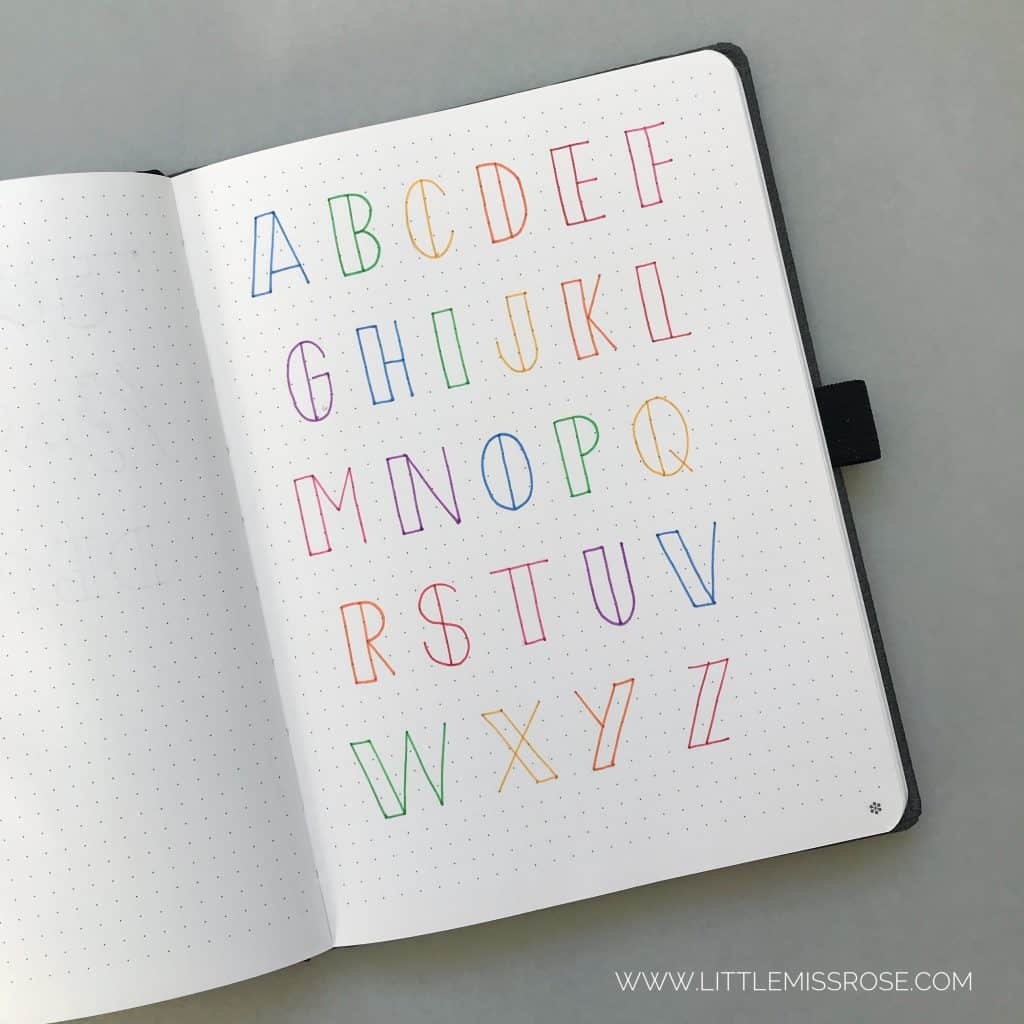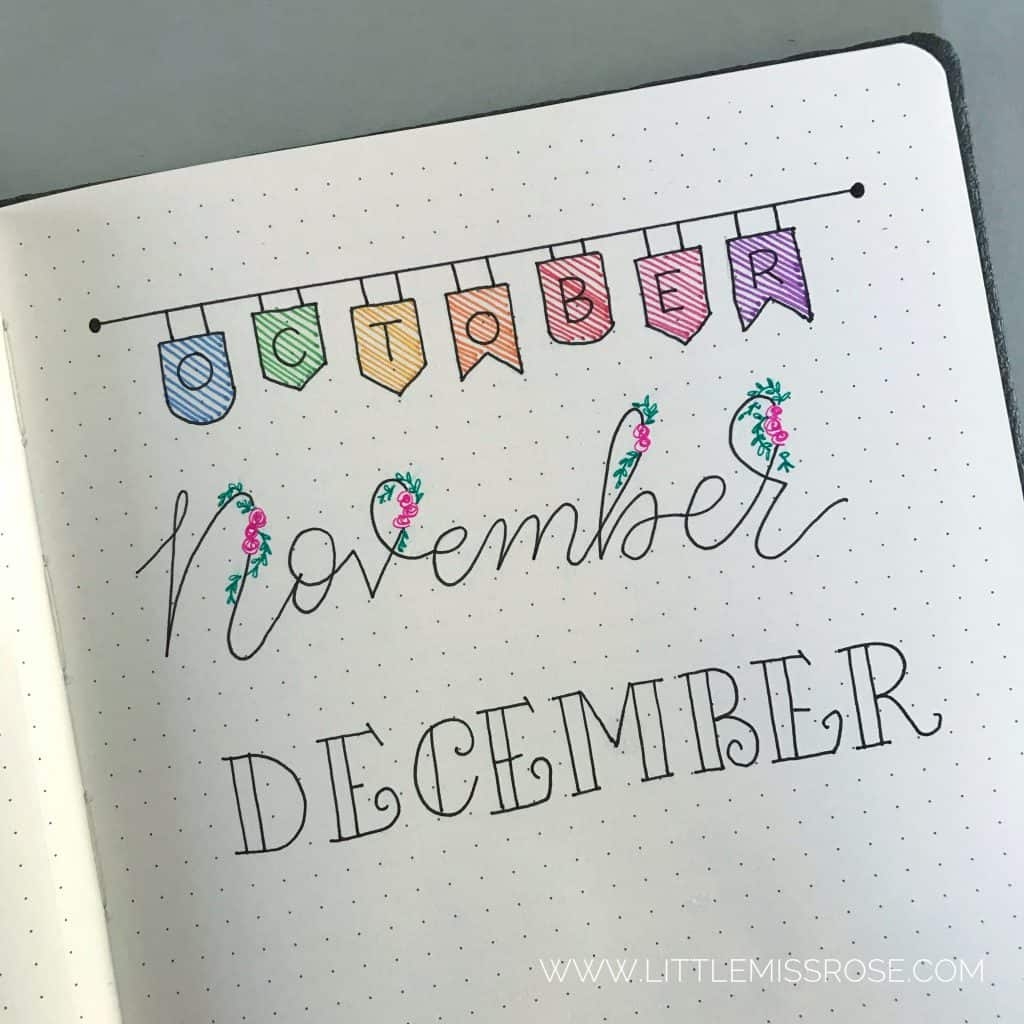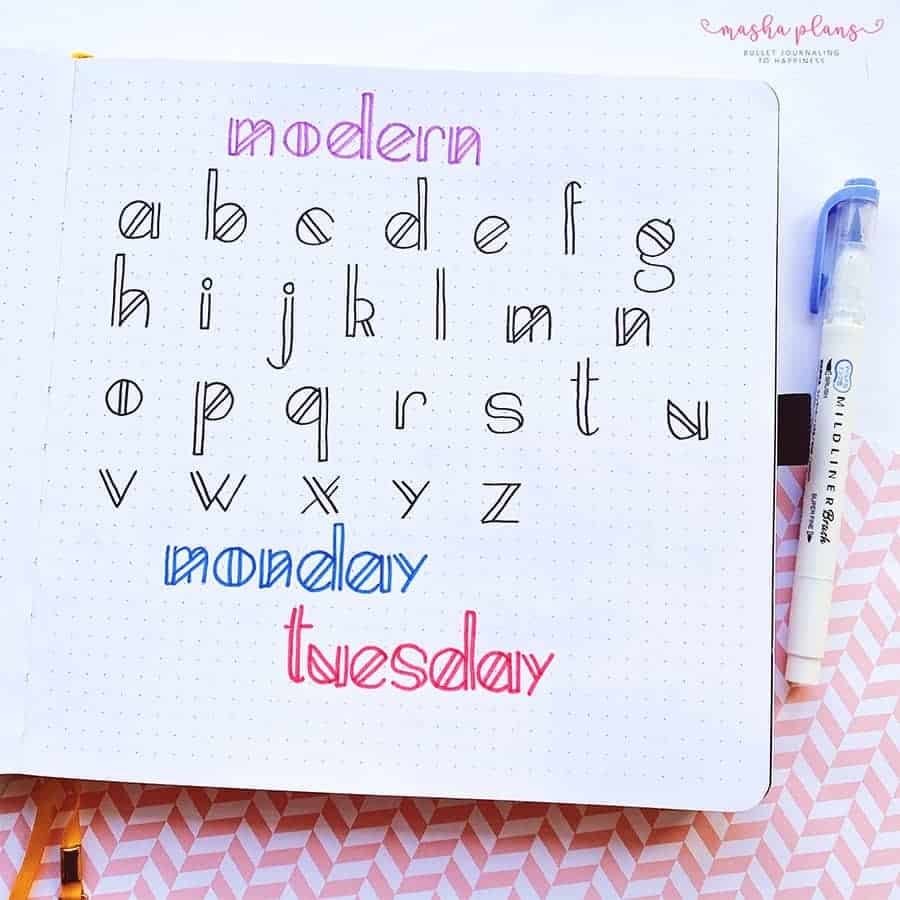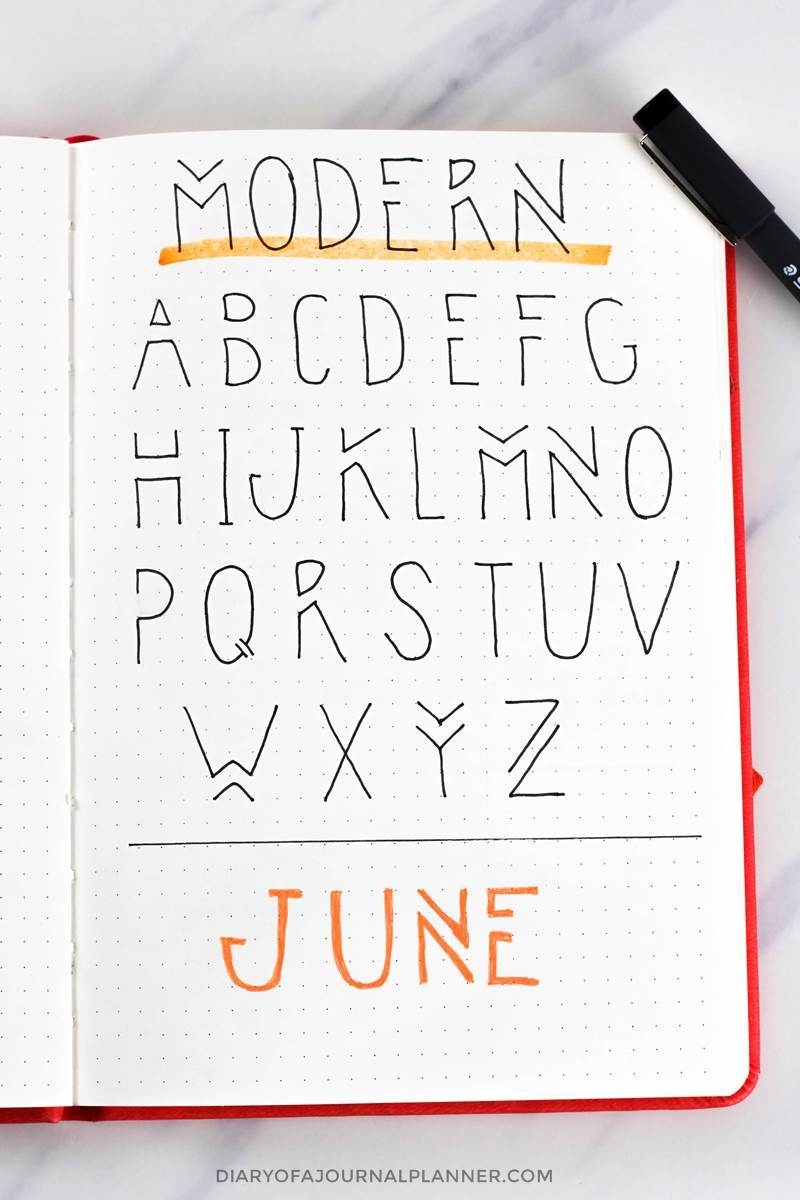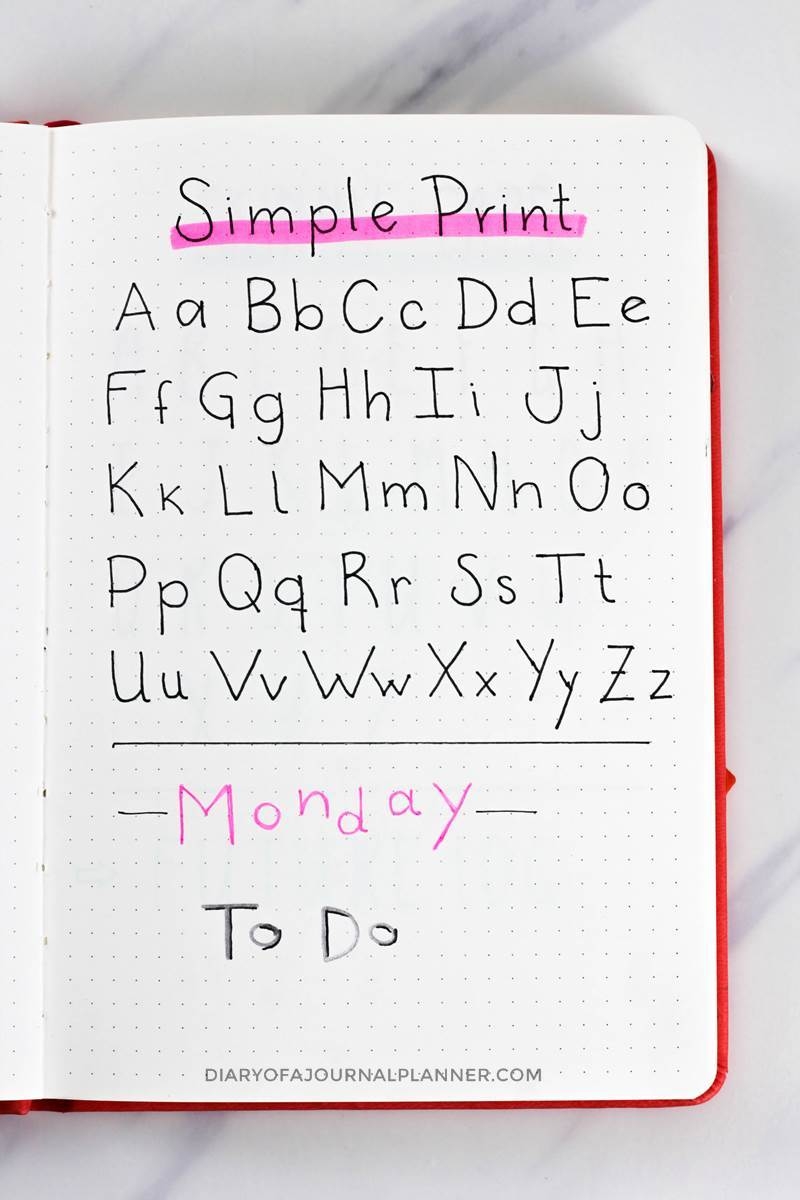
Easy Bullet Journal Fonts
If you’re looking to add some flair to your bullet journal, easy bullet journal fonts are a great way to personalize your pages. Whether you’re a beginner or a seasoned pro, experimenting with different fonts can take your journaling to the next level.
With a variety of fonts to choose from, you can easily switch up your headers, titles, and text to suit your mood or theme. From elegant cursive to bold block letters, there’s a font style to match every vibe. Let your creativity shine as you play around with different designs.
Easy Bullet Journal Fonts: Tips and Tricks
One simple way to elevate your journal is by mixing and matching fonts. Try pairing a decorative script with a clean sans-serif for contrast. Experiment with different sizes, colors, and styles to create a visually appealing layout that catches the eye.
Another tip is to practice consistency. Choose a few fonts that complement each other and use them throughout your journal for a cohesive look. Consistency will help tie your pages together and create a polished finish.
Remember, the key to mastering easy bullet journal fonts is practice. Don’t be afraid to experiment and make mistakes along the way. The more you play around with different styles, the more confident you’ll become in your font choices. Have fun and let your creativity run wild!
Explore creative font options for your bullet journal
So, grab your favorite pens and get ready to transform your bullet journal with easy bullet journal fonts. With a little practice and a lot of creativity, you’ll be well on your way to creating stunning pages that reflect your unique style.